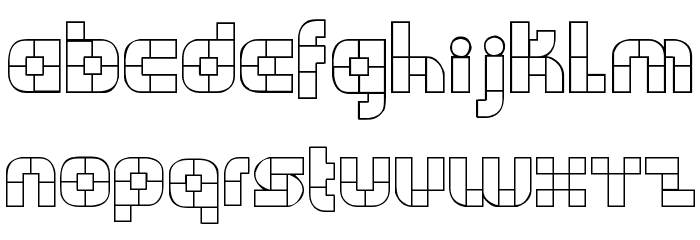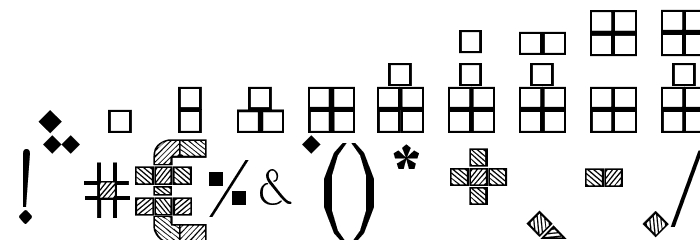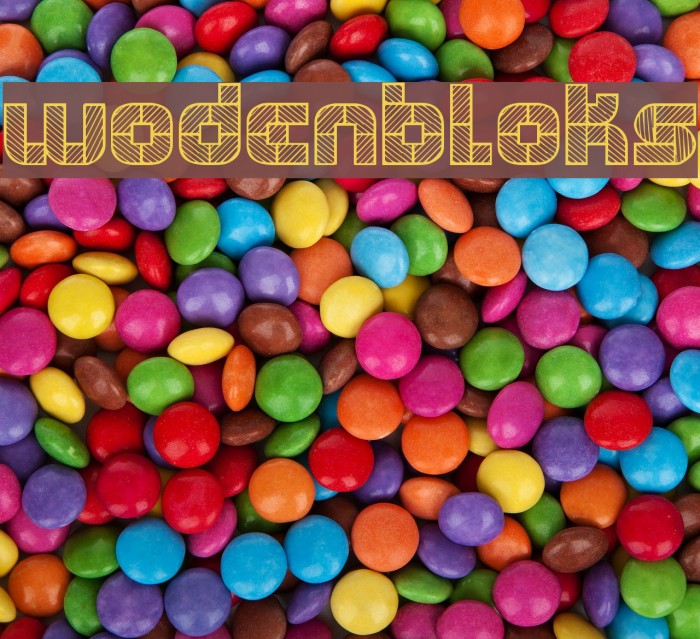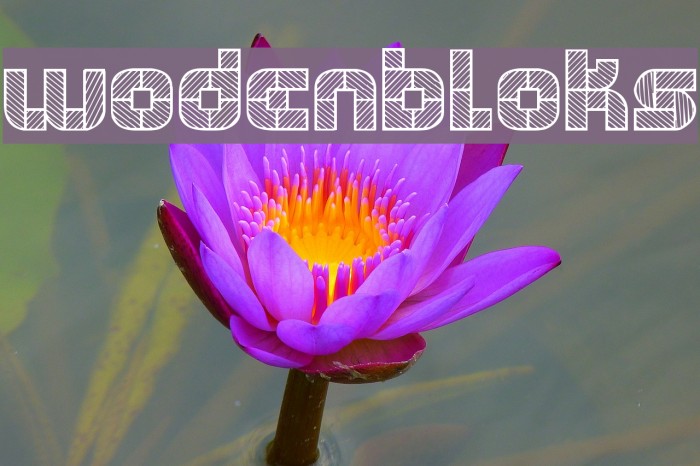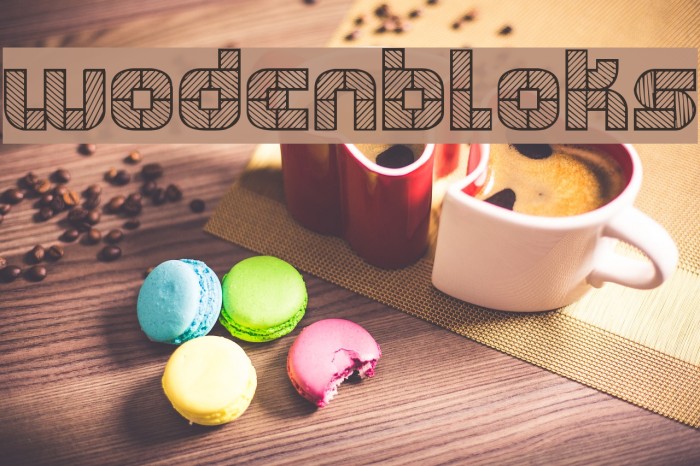
WODENBLOKS Font
This font features a unique geometric design with a block-like structure. Each character is composed of distinct lines and shapes, creating a bold and eye-catching appearance. The uppercase and lowercase letters maintain a consistent style, with a focus on angular forms and a modern aesthetic. The special characters and numbers follow the same geometric pattern, ensuring uniformity across the font. The use of lines and patterns within the characters adds depth and texture, making it suitable for decorative purposes.
A geometric, block-style font with intricate line patterns.
- Proposed Projects: Ideal for posters, logos, and modern design projects where a bold, decorative font is needed.